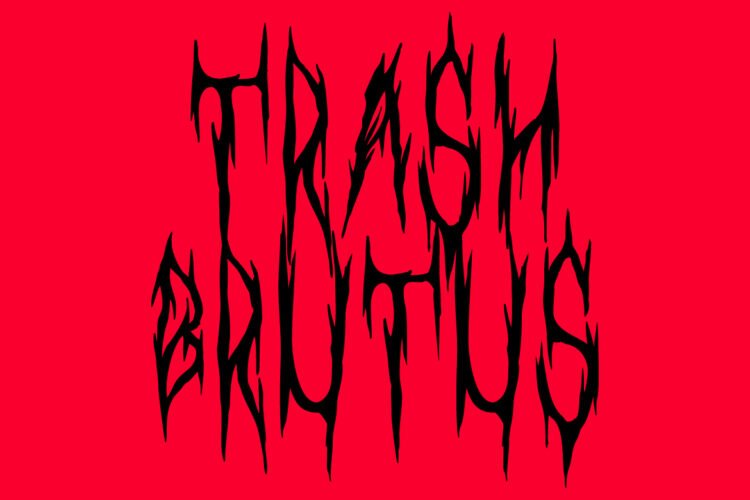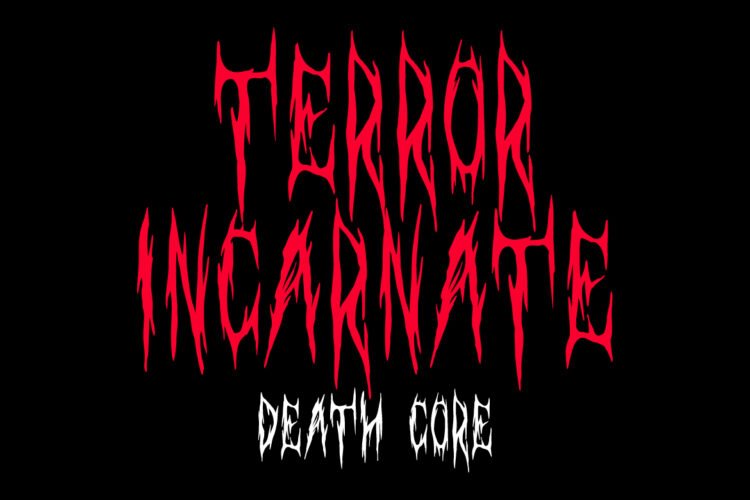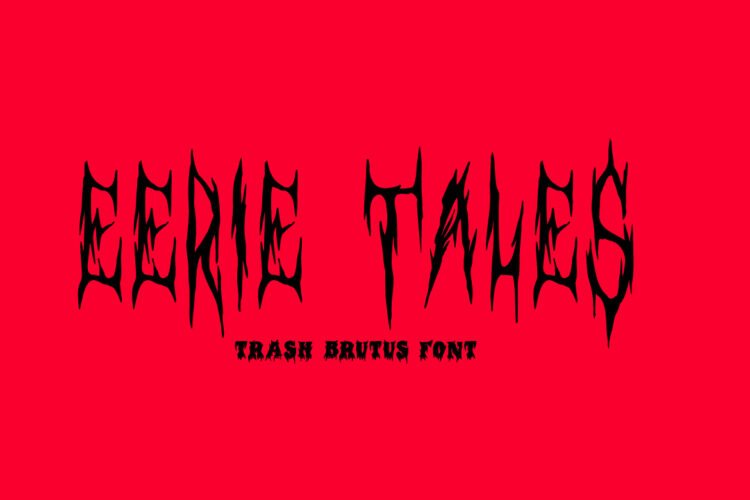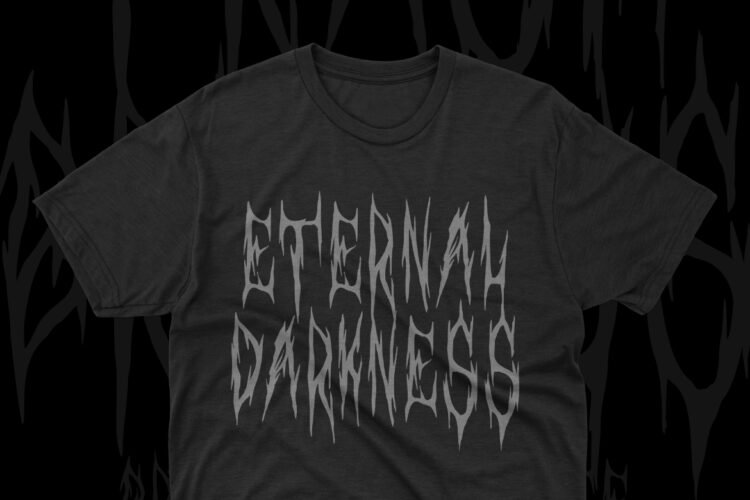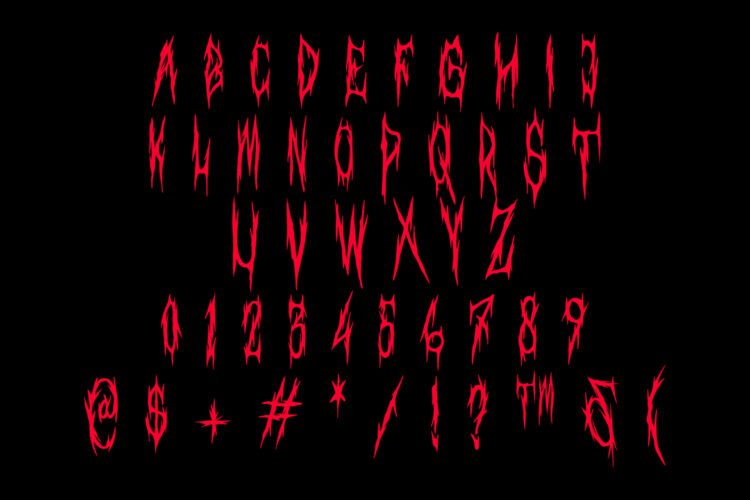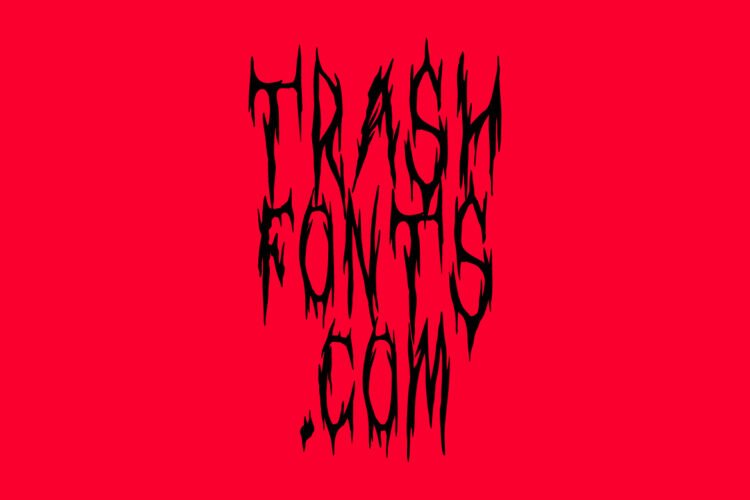
Behold ‘Trash Brutus’—a font that embodies sheer ferocity in every stroke. Its intense and aggressive design makes a bold statement, perfectly reflecting the brutal power of metal. With menacingly bold characters, ‘Trash Brutus’ is the epitome of unrelenting force, demanding attention and leaving an indelible mark. Unleash the primal energy of your music with the raw, uncompromising power of ‘Trash Brutus.